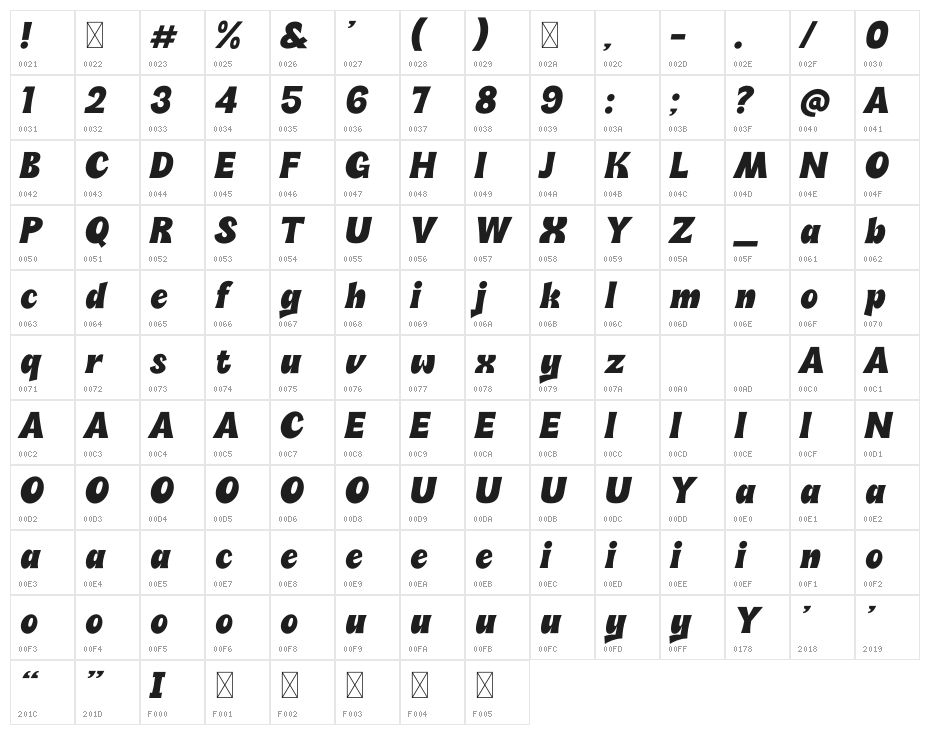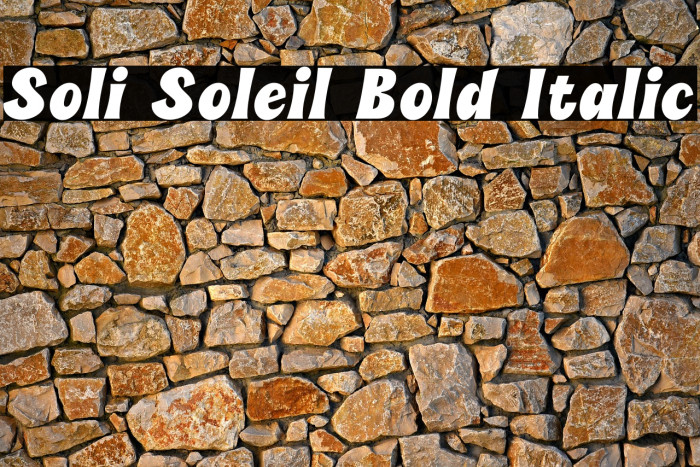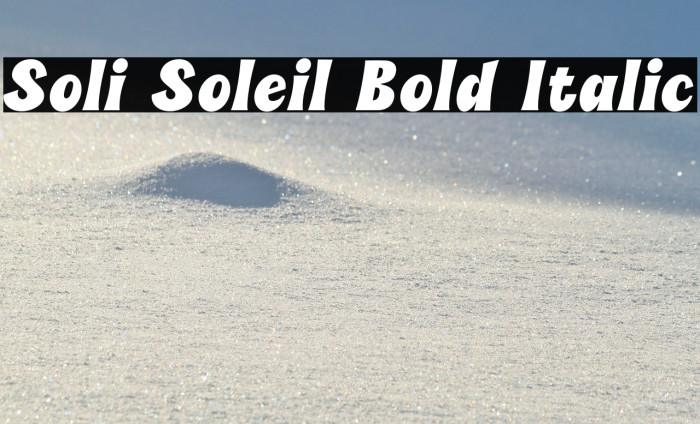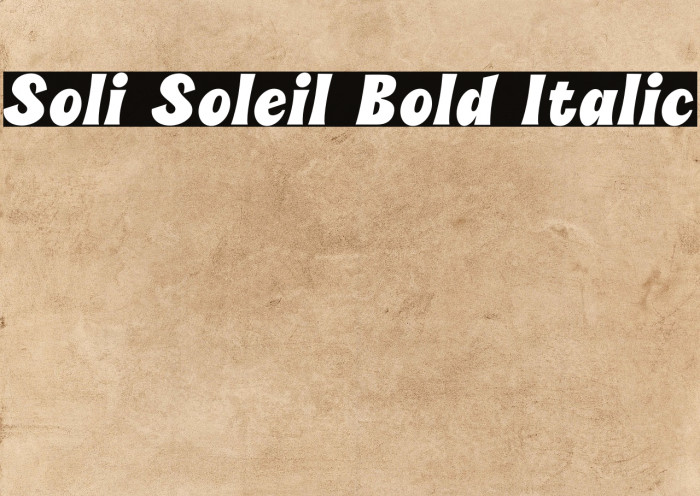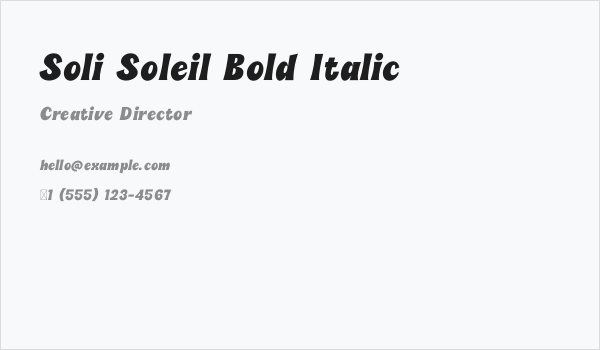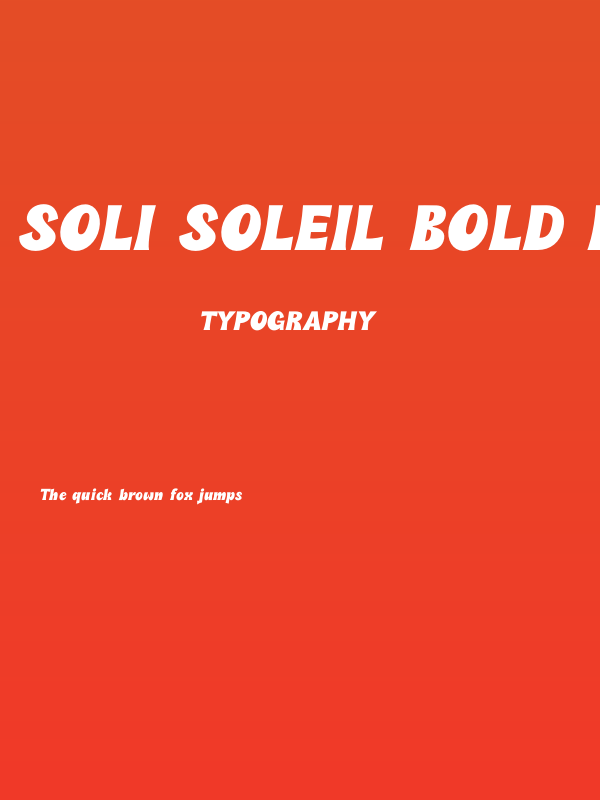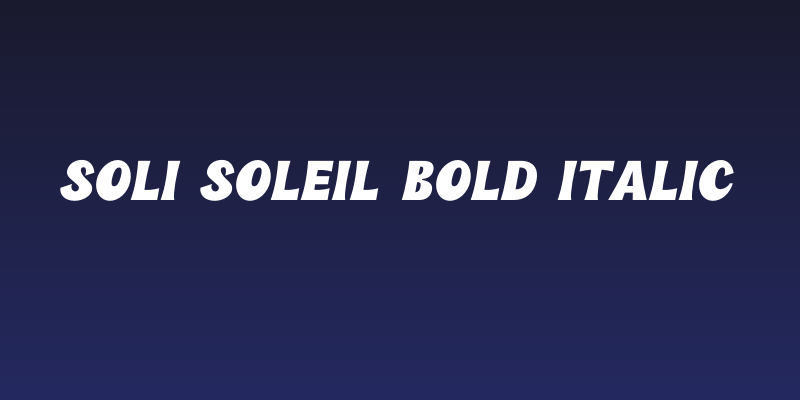
Soli Soleil Bold Italic Font
Soli Soleil Bold Italic Description
This font features a bold and italicized style, characterized by its strong and dynamic presence. The letters are slightly slanted, giving a sense of movement and energy. The strokes are thick and consistent, providing a robust appearance. The uppercase and lowercase letters maintain a cohesive look, with rounded edges and smooth curves. Numbers and special characters are equally bold, ensuring readability and impact. This font is designed to stand out, making it suitable for attention-grabbing applications.
| Proposed Projects | Ideal for headlines, posters, branding materials, and any design requiring a bold statement. |